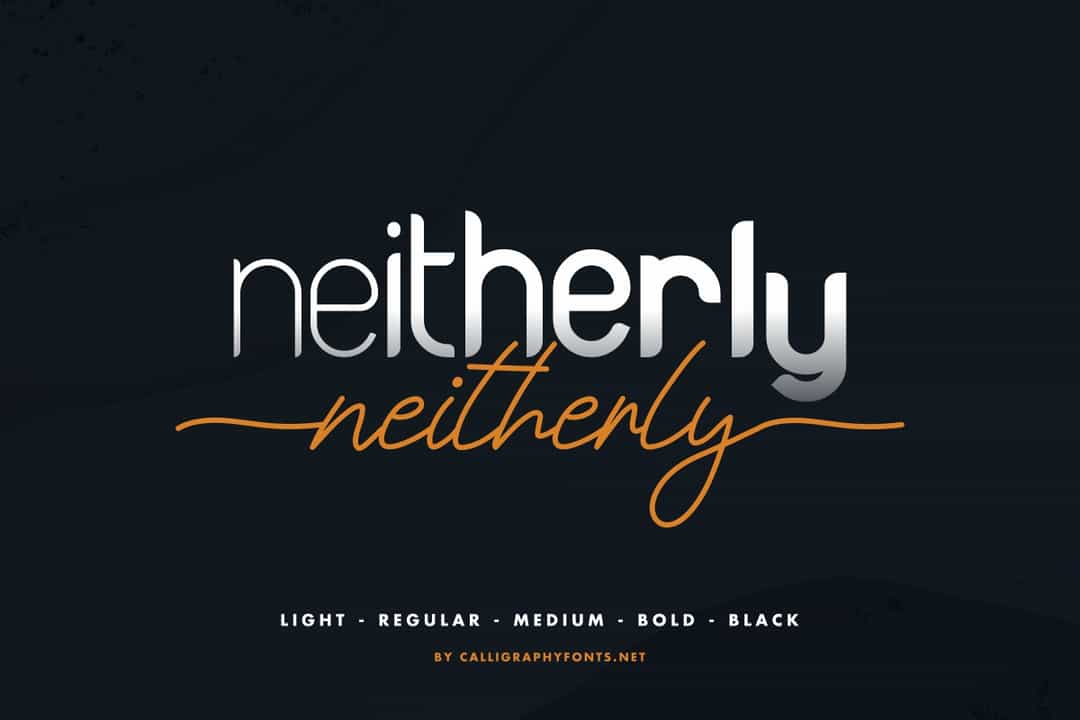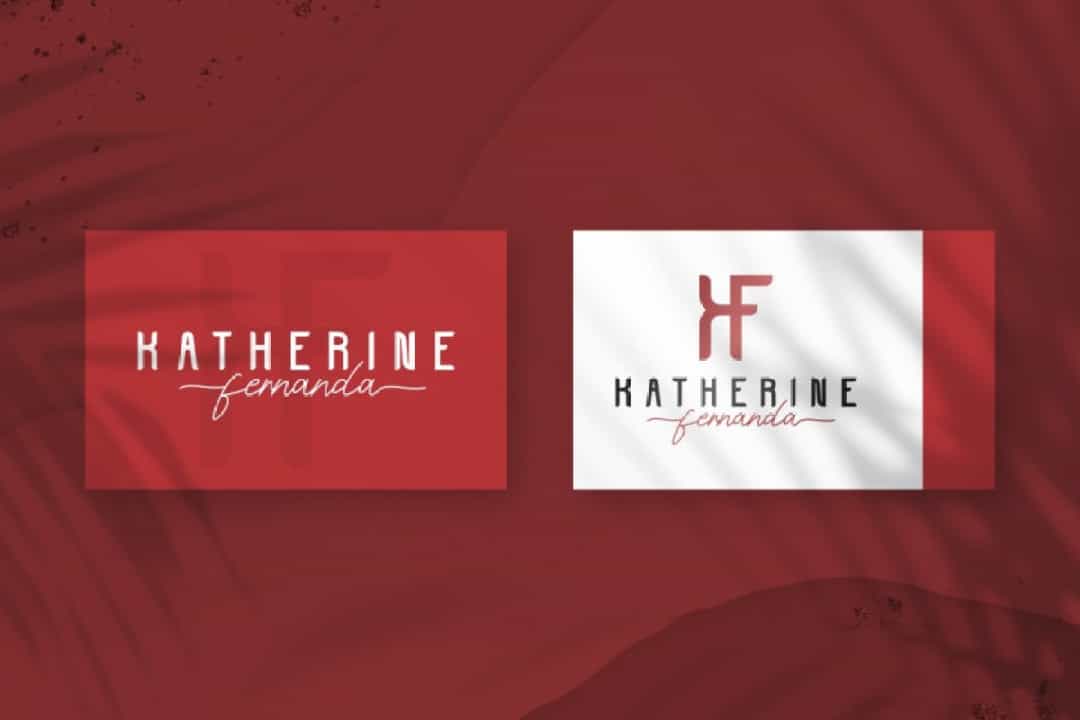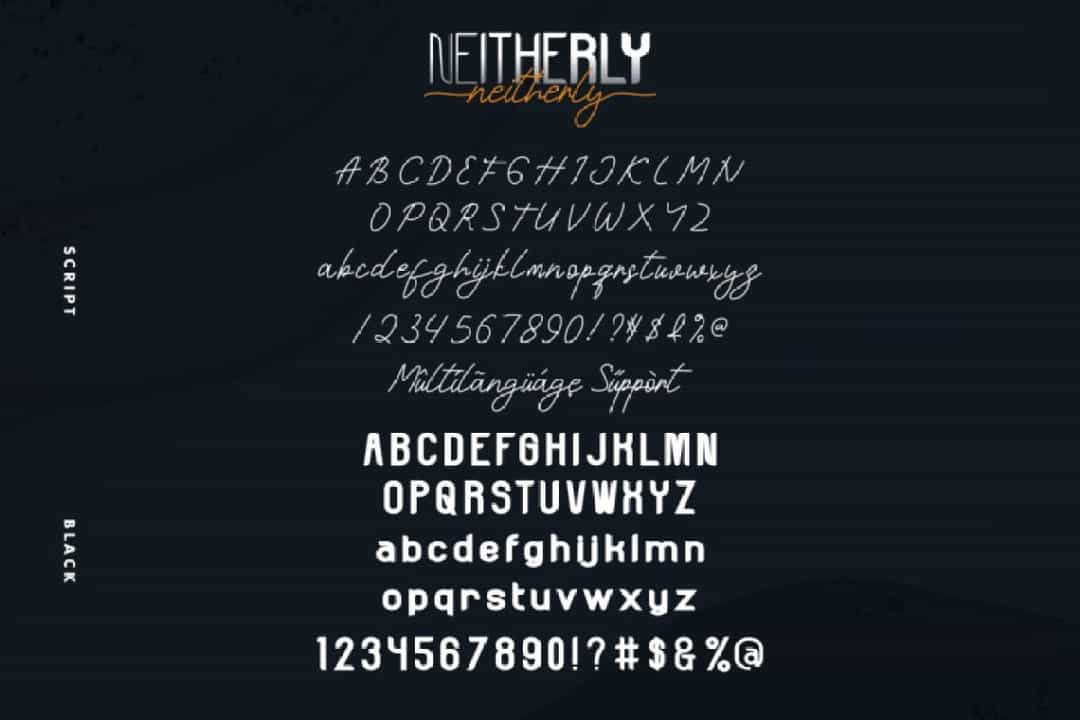
Discover Neitherly Font Duo, part of the Sans Serif Handwritten collection—a versatile and unique font perfect for adding a personal touch to your projects. Download it for free and enjoy crafting designs with style, from invitations to social media posts. This font is available exclusively for personal use, giving you the freedom to create without limits. Unlock your creativity with Neitherly Font Duo today!
The Neitherly is an Duo Font Family comprising SIX different font styles: The typeface used in the script is Sans, the font styles applied are Medium Light Bold and Black. This font family is characterized by its minimalistic, contemporary, stylish and glamorous look with luxury simple classic letters suitable for use on both the screen and in print.